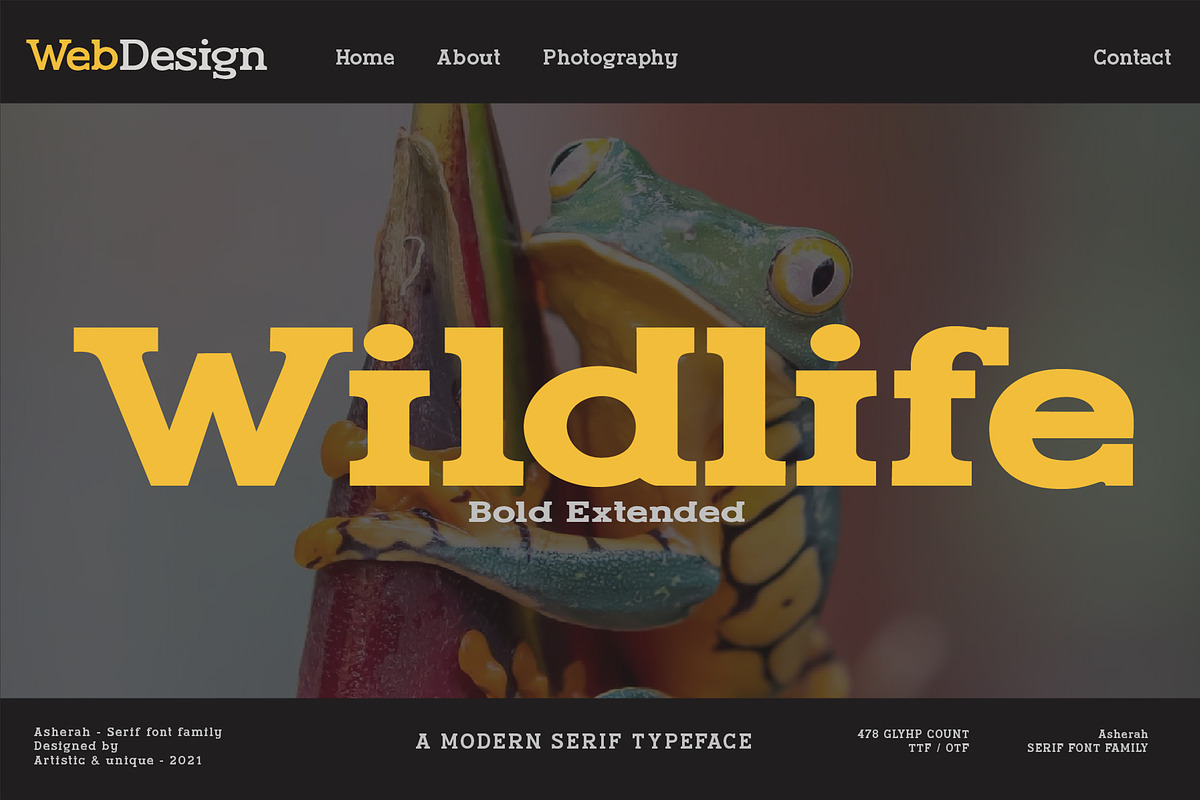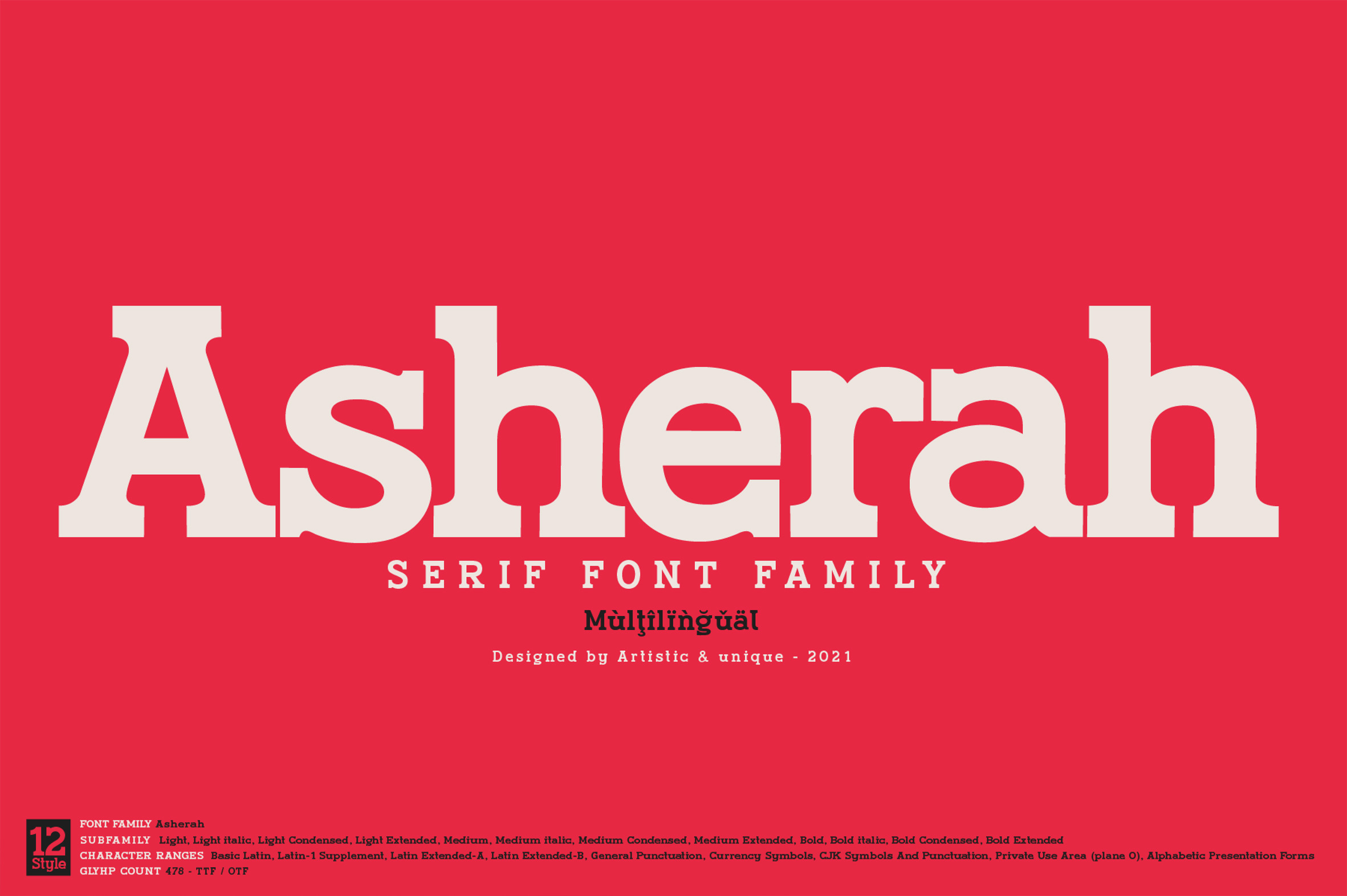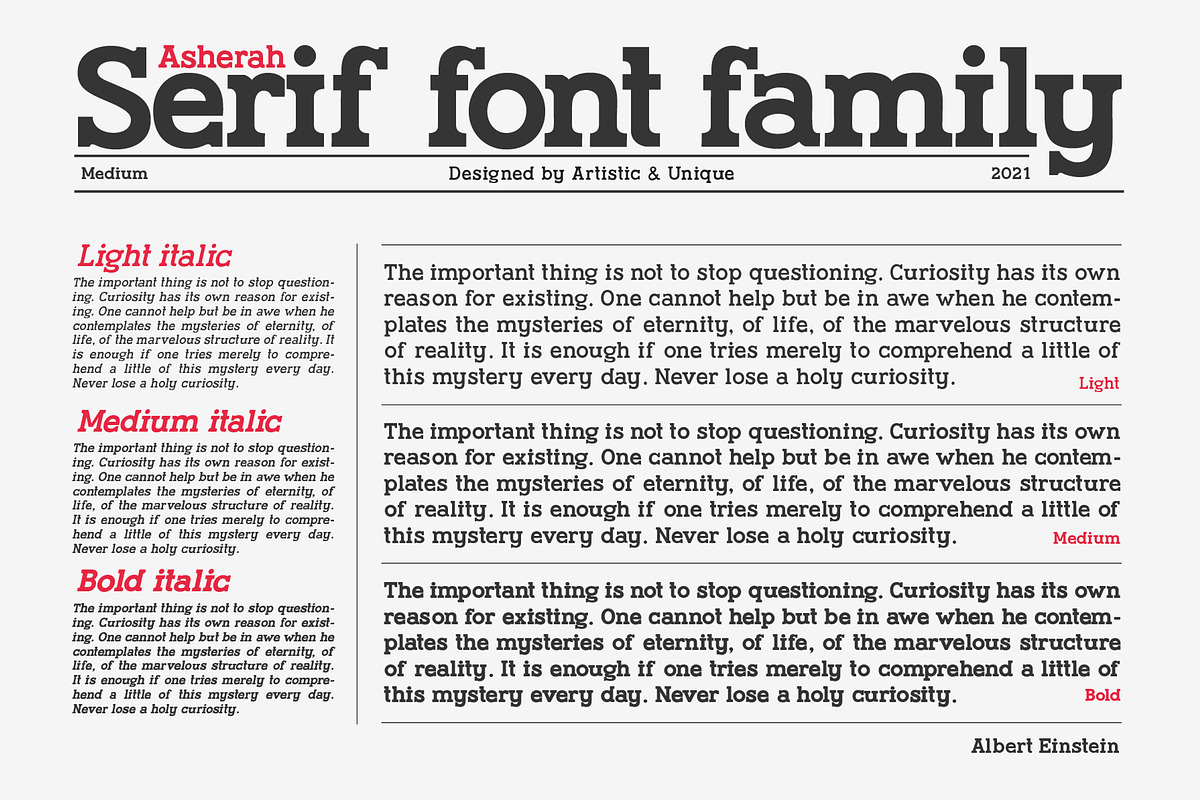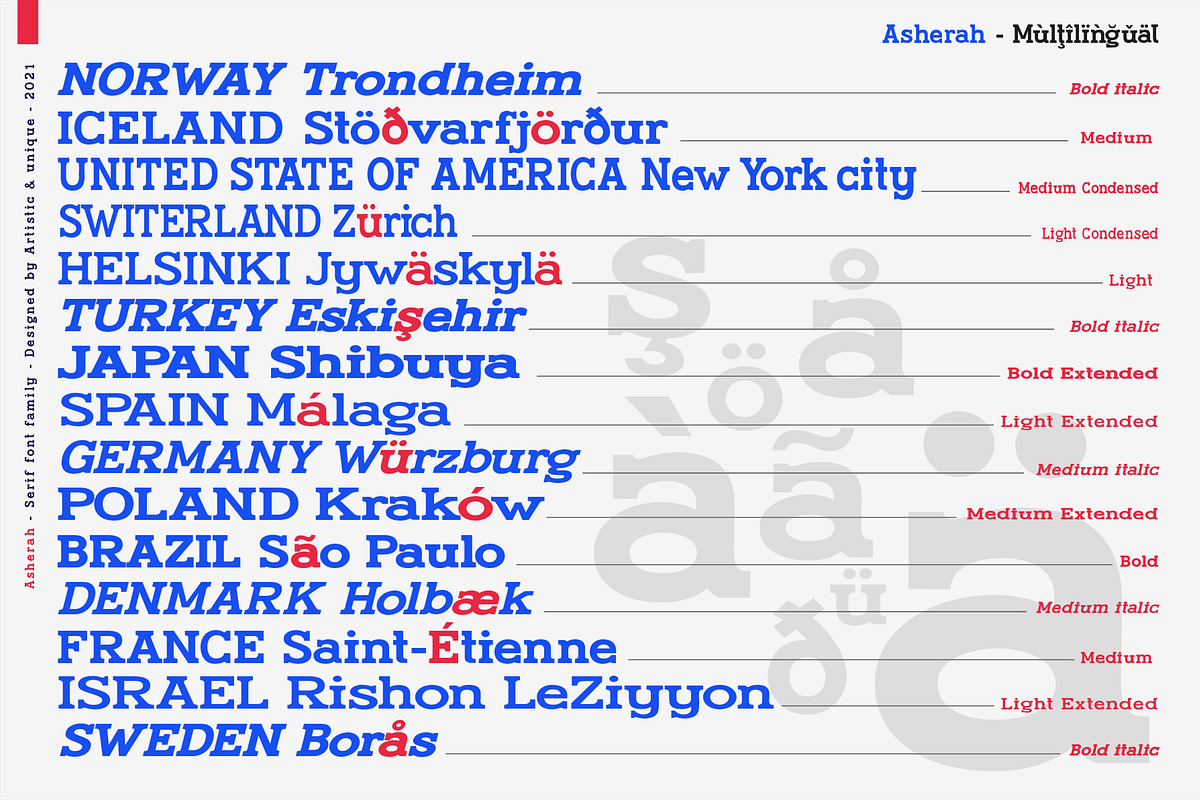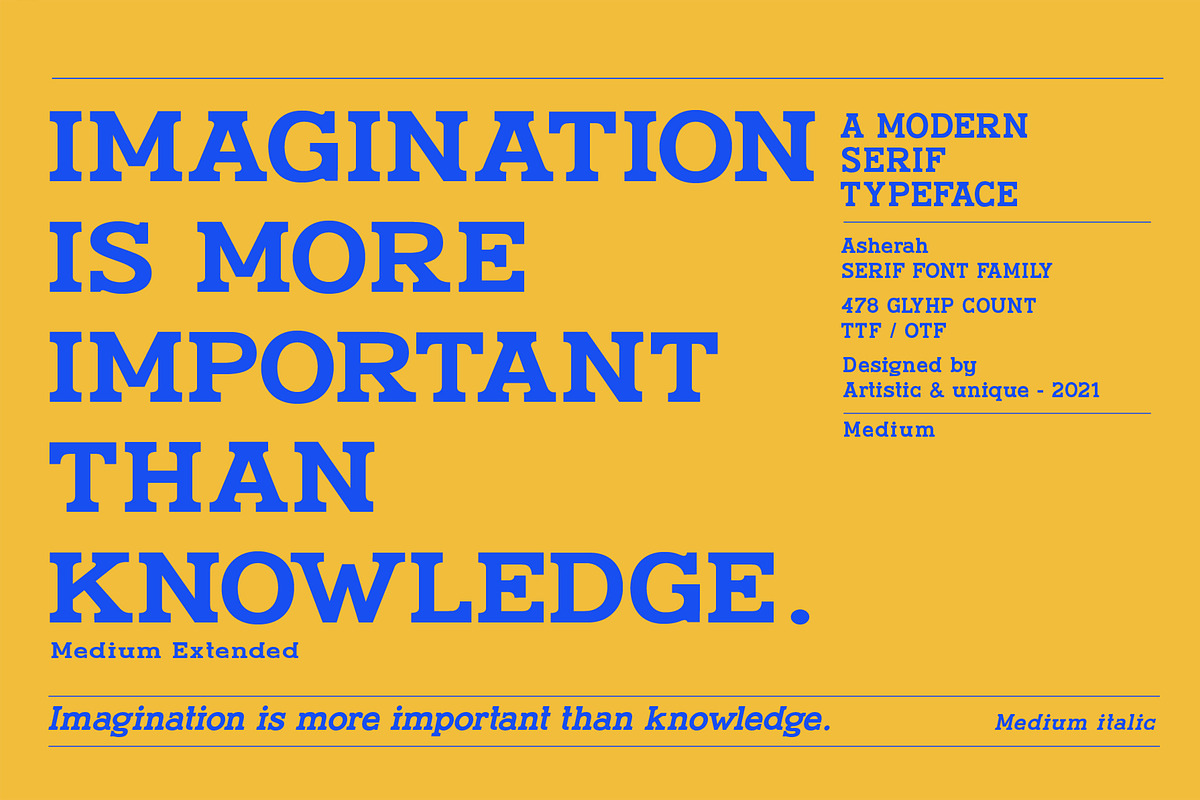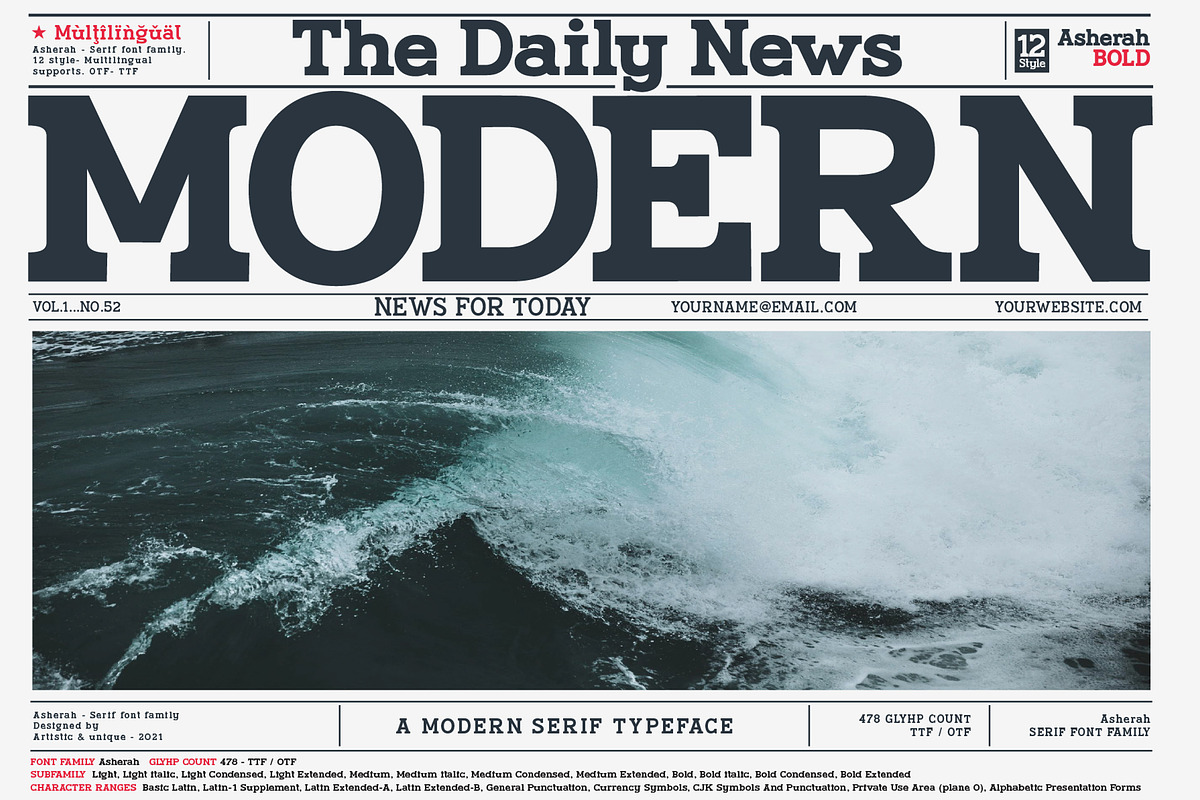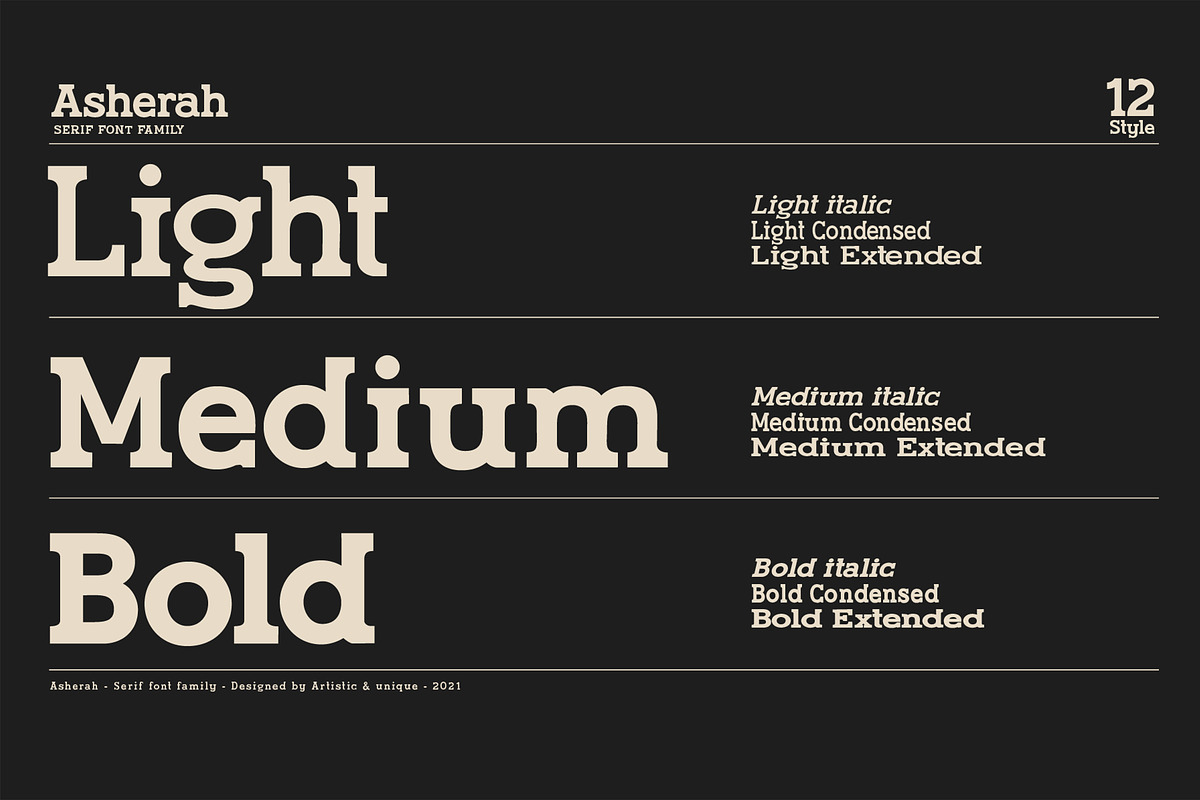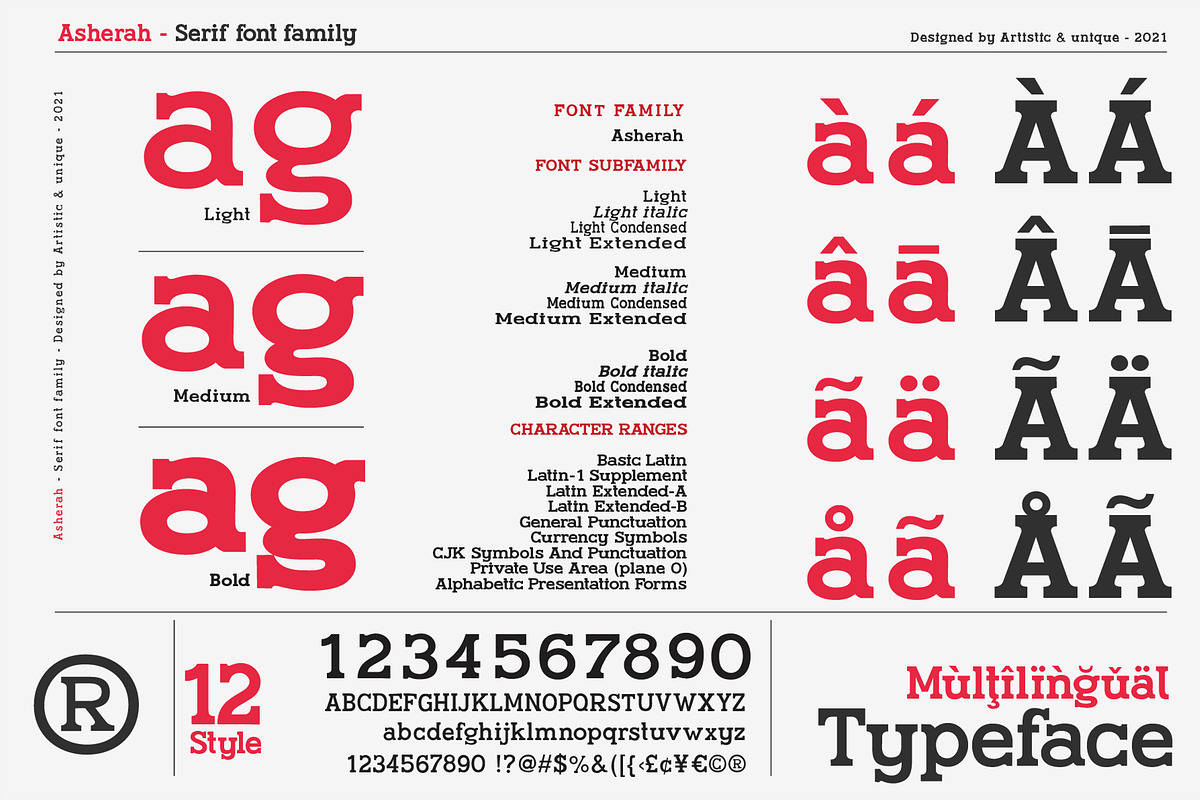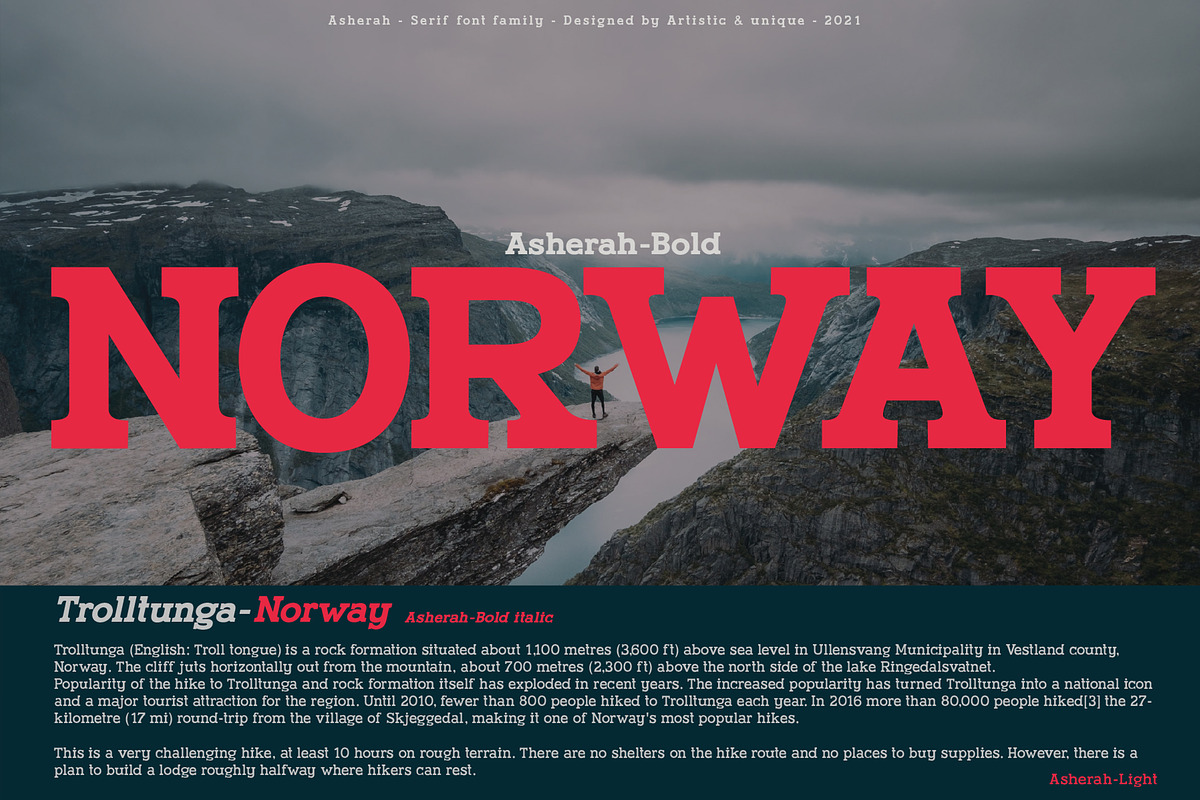
Asherah - Serif font family
Asherah - Serif font family - Multilingual support, 12 Style - OTF,TTF
INTRODUCING
Asherah is a modern serif font family. This font family is multilangual supported and 12 different styles. With different character designs in its structure, it can meet your needs in innovative pursuits. It has a timeless structure where you can create your modern-elegant or classic design alternatives.
Well suited for books and magazines, editorials, headlines, websites, logos, branding, advertising and more. Asherah font family can meet your needs in all modern and classic creative projects.
With this font you can create your unique designs.